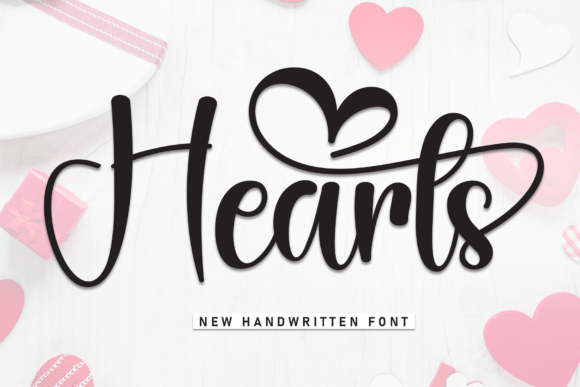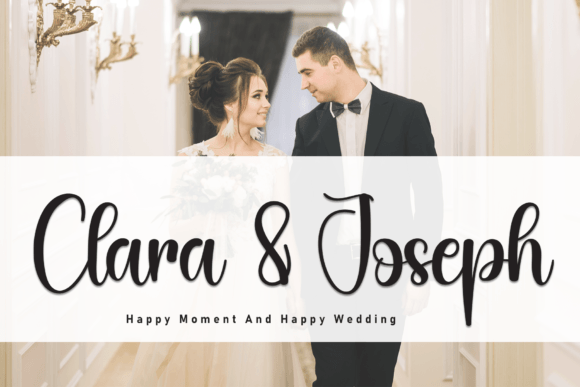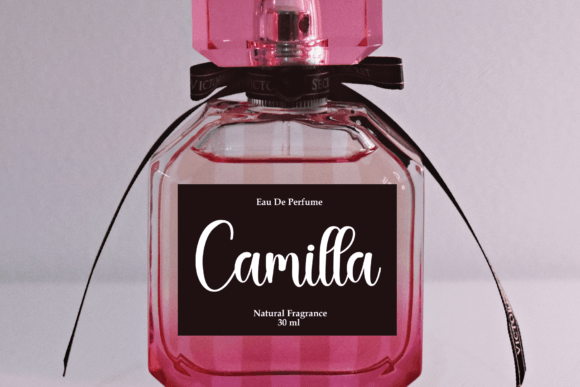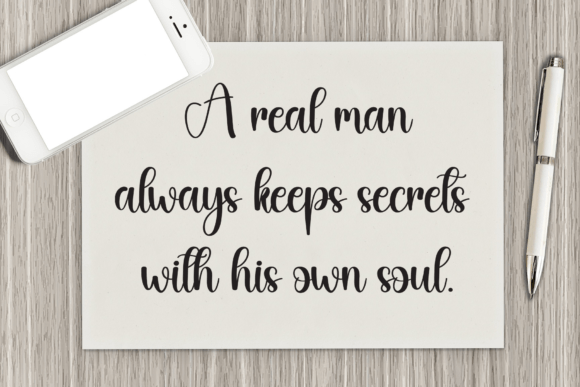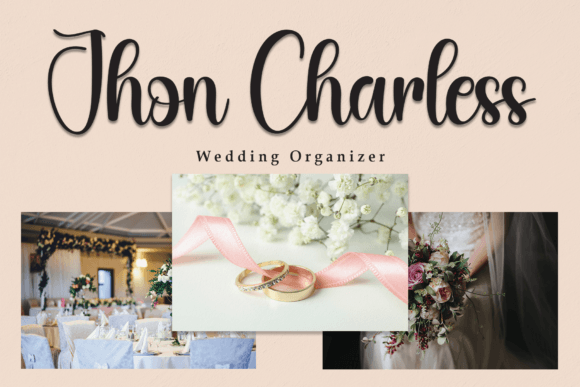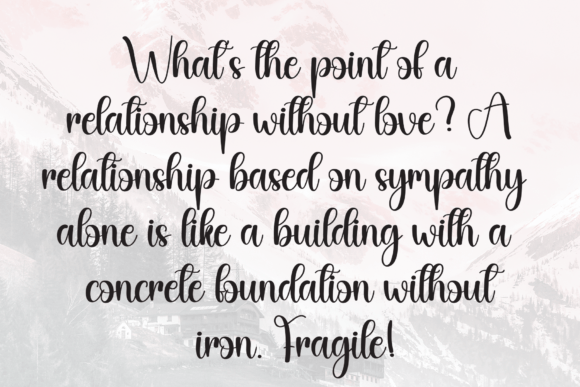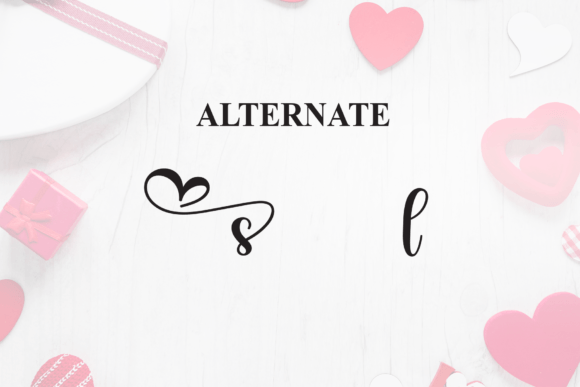
The Sweetest Touch: Discovering the Hearts Font
As a designer, you’ve probably experienced that moment when a project’s aesthetic comes together in a flash of inspiration. It’s like the universe aligns, and every element falls into place. For me, that moment happened when I stumbled upon the Hearts Font. Its delicate, handwritten style and beautiful swashes immediately captured my heart – or should I say, my heart’s font?
Designed to evoke a sense of whimsy and romance, the Hearts Font is perfect for adding a touch of elegance to your crafty projects. Whether you’re creating letterheads, titles, or stationery, this font is sure to bring a smile to your customers’ faces. Its versatility makes it a valuable asset for designers looking to add a personal touch to their work.
Hearts Font Key Features
- Unique Characteristics: The font features a distinctive, hand-drawn design with intricate details and flourishes, giving it a romantic and whimsical feel.
Hearts Font Review
I’ve worked with a variety of fonts, and my experience with Hearts Font has been… mixed. ✨
On the positive side:
- It’s perfect for Valentine’s Day, weddings, or any other theme that revolves around love and romance. The whimsical feel of the font makes it a great choice for those types of projects.
- The bold and playful style of the font can also be used to add a touch of elegance and sophistication to certain designs.
- The font has a good range of weights and styles, making it easy to use in a variety of contexts.
However, there are some limitations:
- The font may not be the best choice for body text, as it can be difficult to read at smaller sizes. ⚠️
- The font’s playful style can also make it feel a bit too casual or juvenile for more formal projects.
Overall, I’d say that Hearts Font is a solid choice for certain types of projects, but it may not be the best fit for every design. It’s worth considering the specific needs of your project and whether this font is the right choice for the job.
The Hearts font is ideal for:
- Valentine’s Day designs and cards.
- Wedding invitations and decorations.
- Love-themed social media graphics.
Alternatives to Hearts Font for Designers
Great Vibes Font is a modern, elegant script font suitable for various design projects. It’s perfect for creating invitations, greeting cards, or any other design that requires a touch of sophistication. Great Vibes Font is more versatile than Hearts Font, with a wider range of applications, but lacks the unique, hand-drawn feel of Hearts Font.
Pacifico Font is a beautiful, cursive script font that exudes a sense of relaxation and calmness. It’s ideal for designs that require a soothing, laid-back atmosphere, such as wellness websites or travel brochures. While Pacifico Font shares some similarities with Hearts Font in terms of its elegant, handwritten feel, it’s more suited for casual, everyday designs rather than formal or romantic projects.